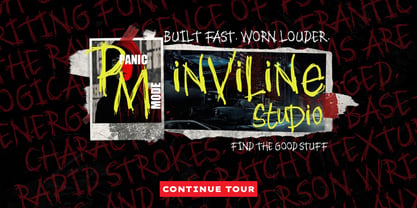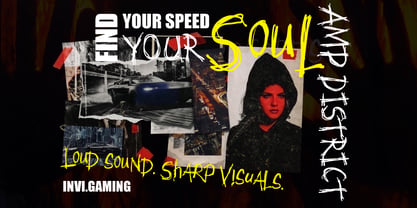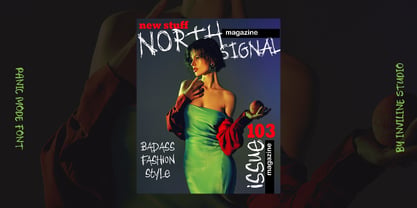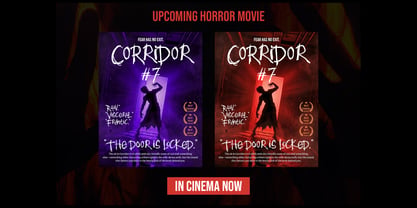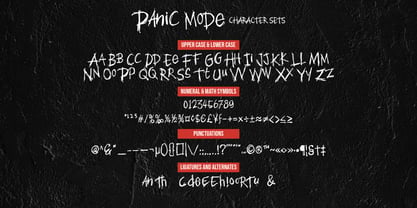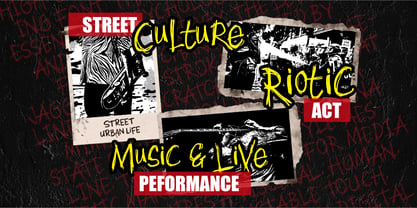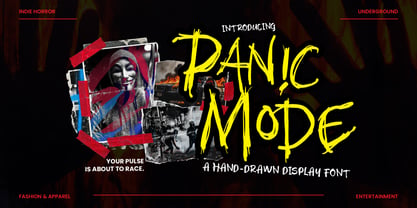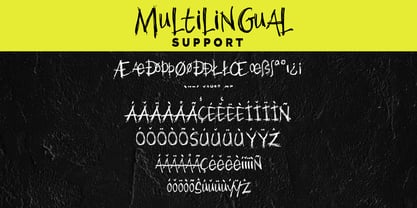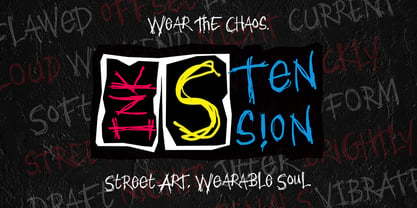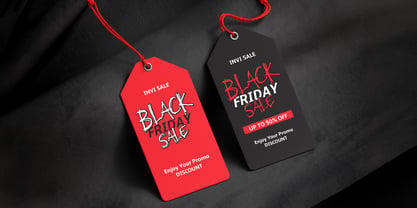
PanicMode
by Inviline
The PanicMode Font Family was designed by Virgiawan Listanto and published by Inviline. PanicMode contains 1 styles. More about this family
Panic Mode is a visceral, hand-drawn display font crafted by Inviline Studio, fully embracing the 2026 "Anti-Design" and "Chaotic Scripts" typographic trends. Designed for bold expression, it replicates the raw, bleeding texture of an aggressive marker on paper, delivering a contemporary energy that clean sans-serifs cannot match. This font is tailored for disruptive industries, making it an ideal typographic tool for indie horror cinema, underground streetwear, high-adrenaline gaming, and live music performance graphics. Panic Mode features a robust character set with smart ligatures and alternates, enabling designers to create frantic, hand-scrawled headlines that stand out from repetitive digital type. Additionally, it offers comprehensive multilingual support, making it perfect for global campaigns.